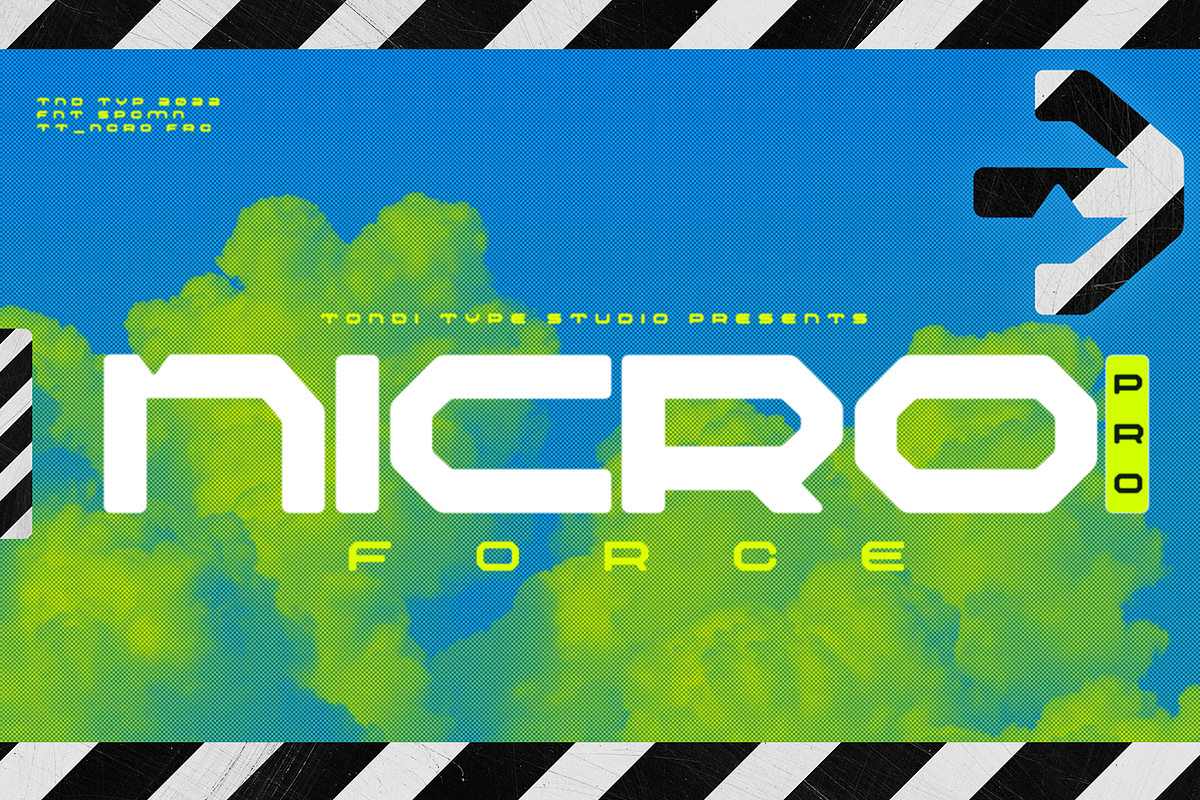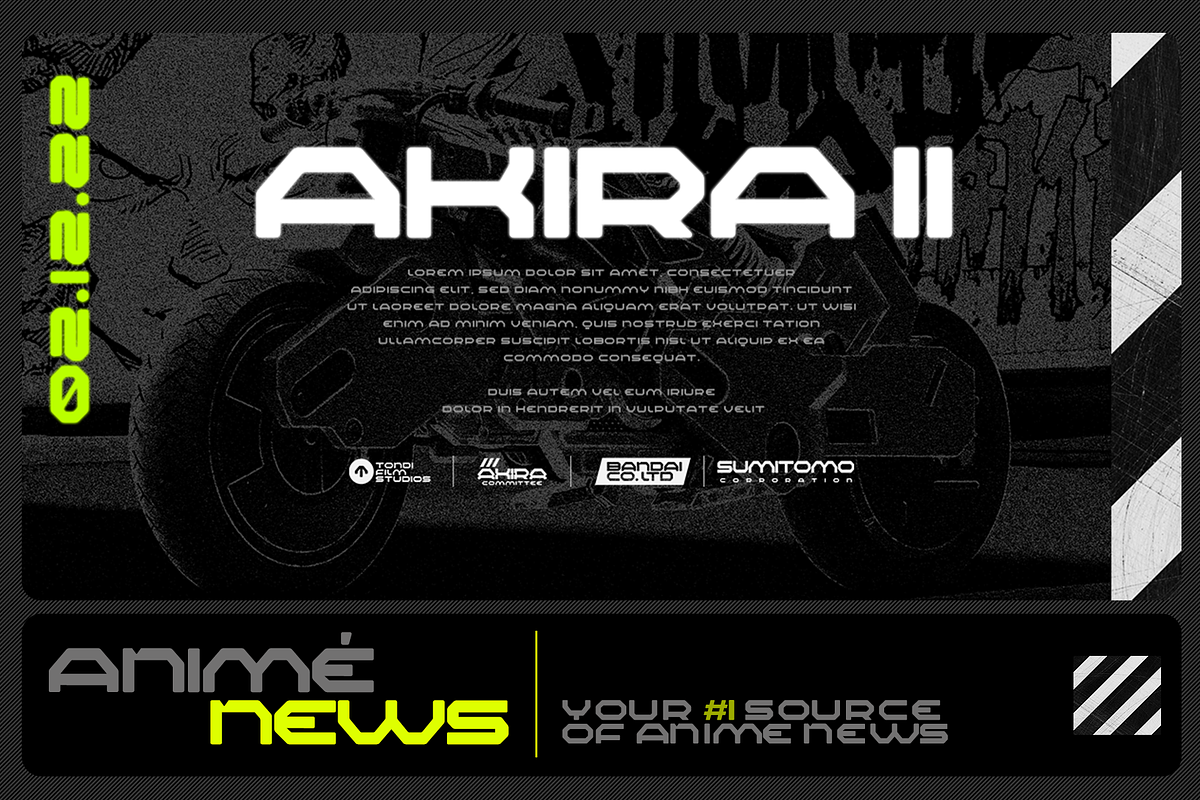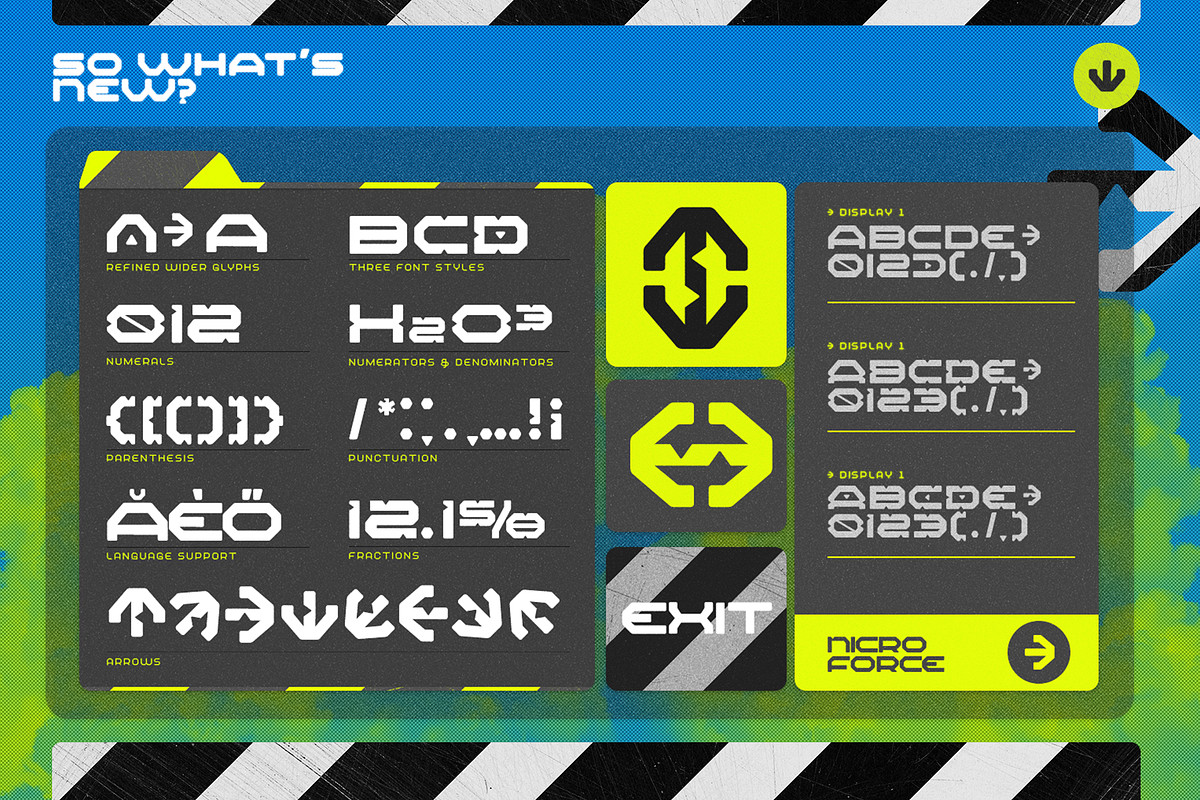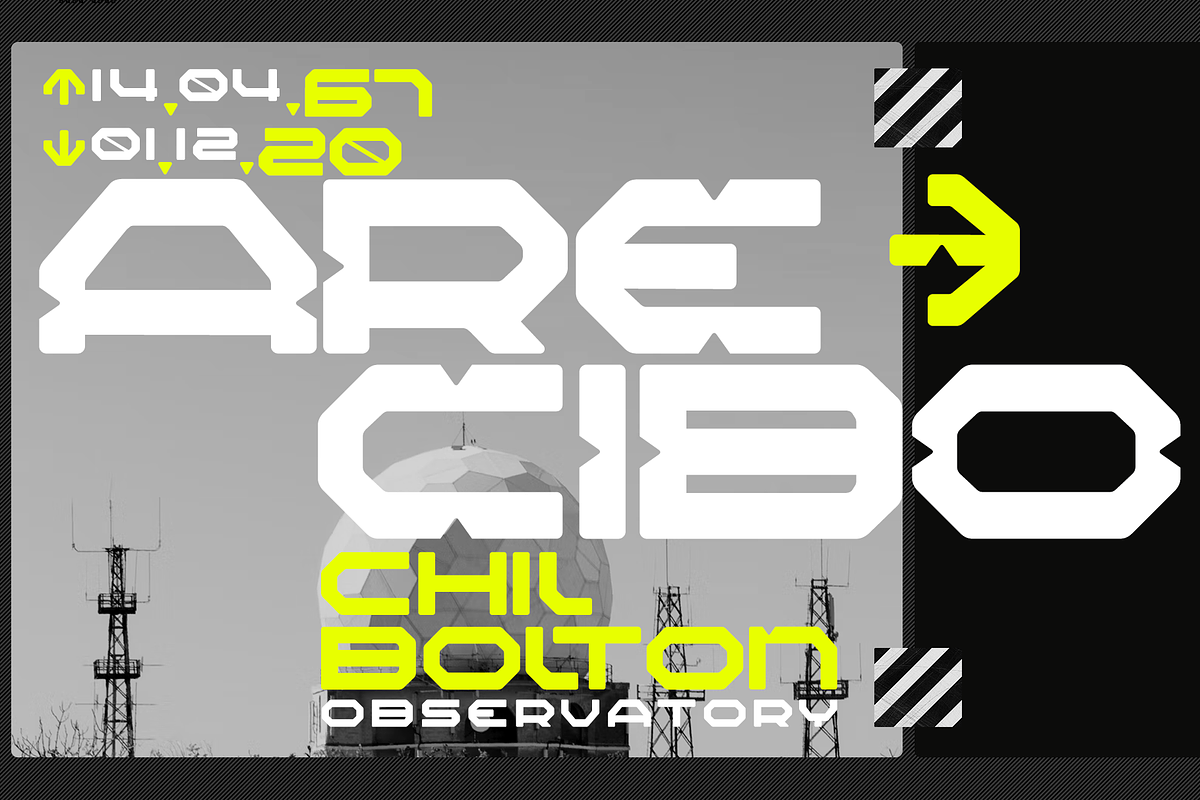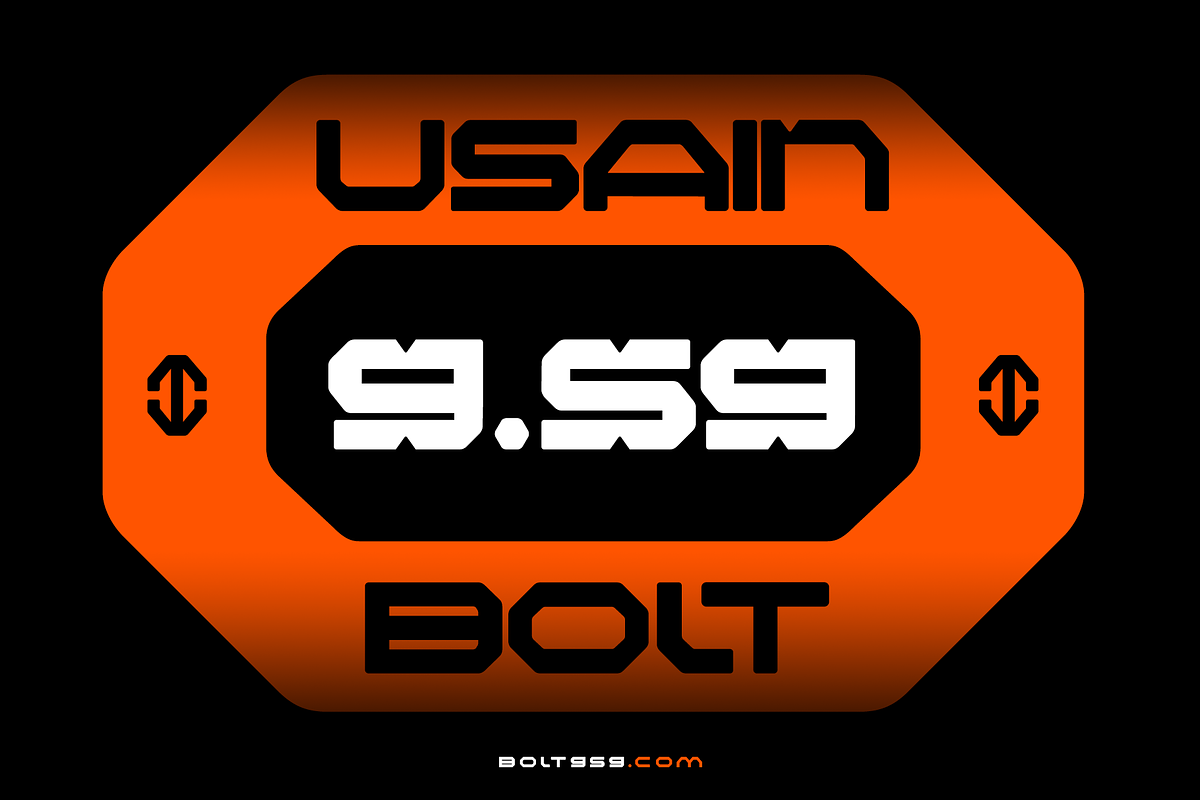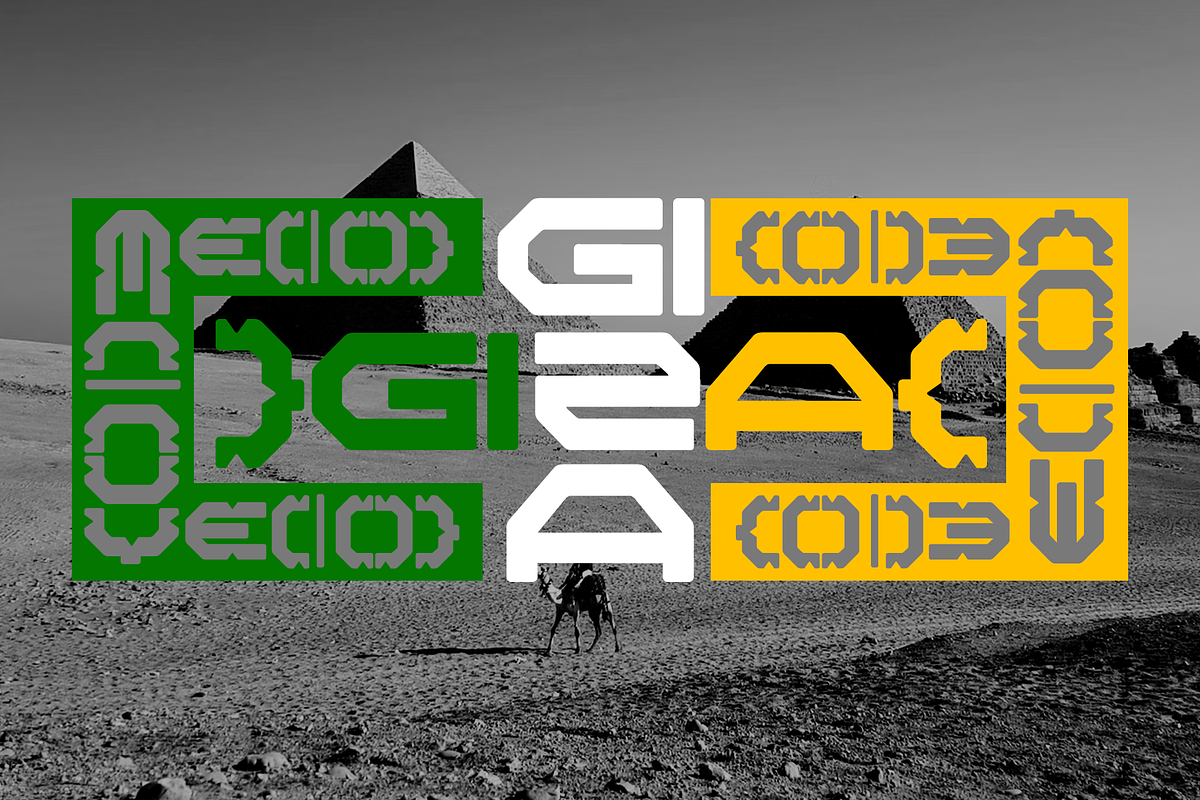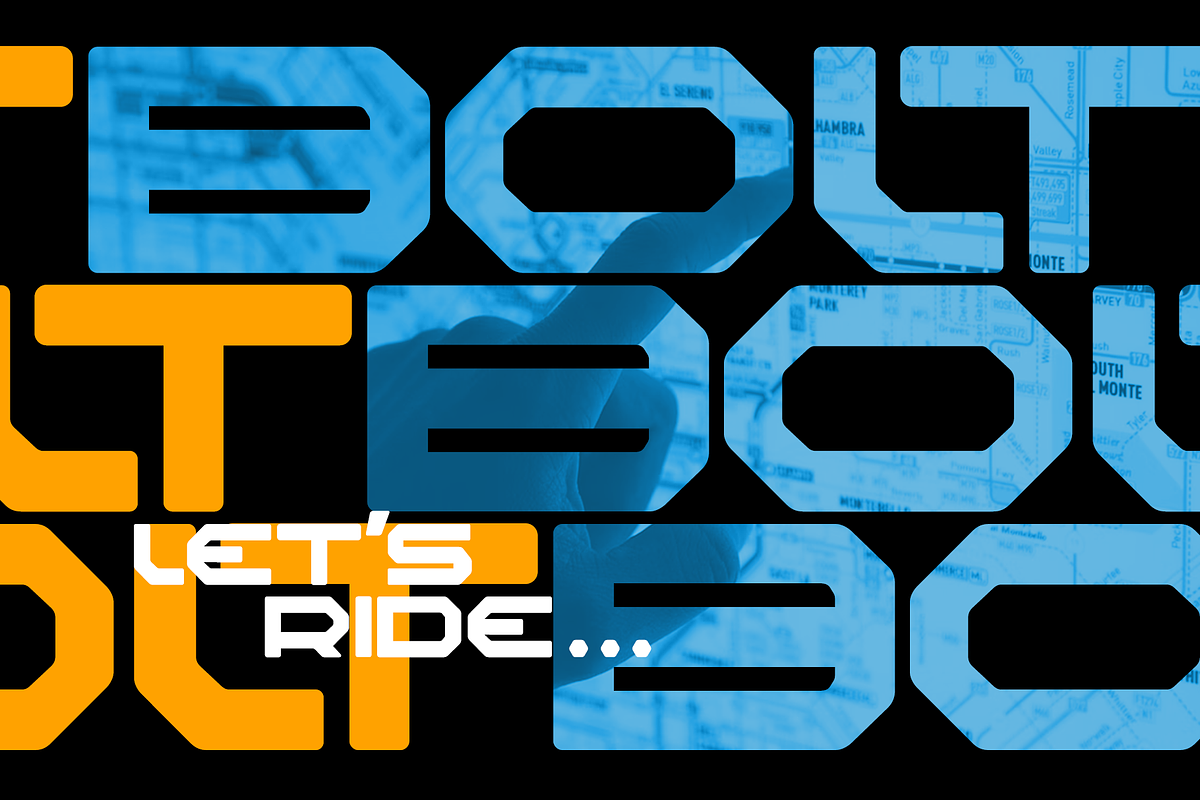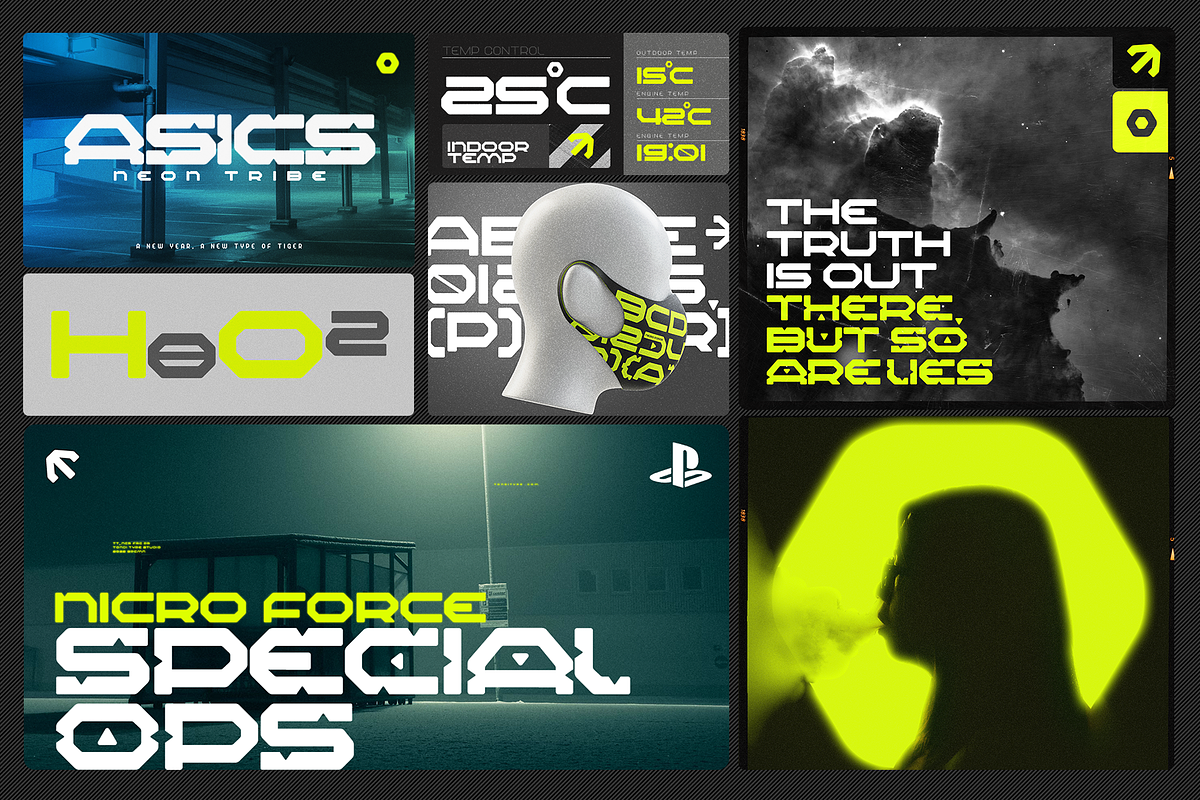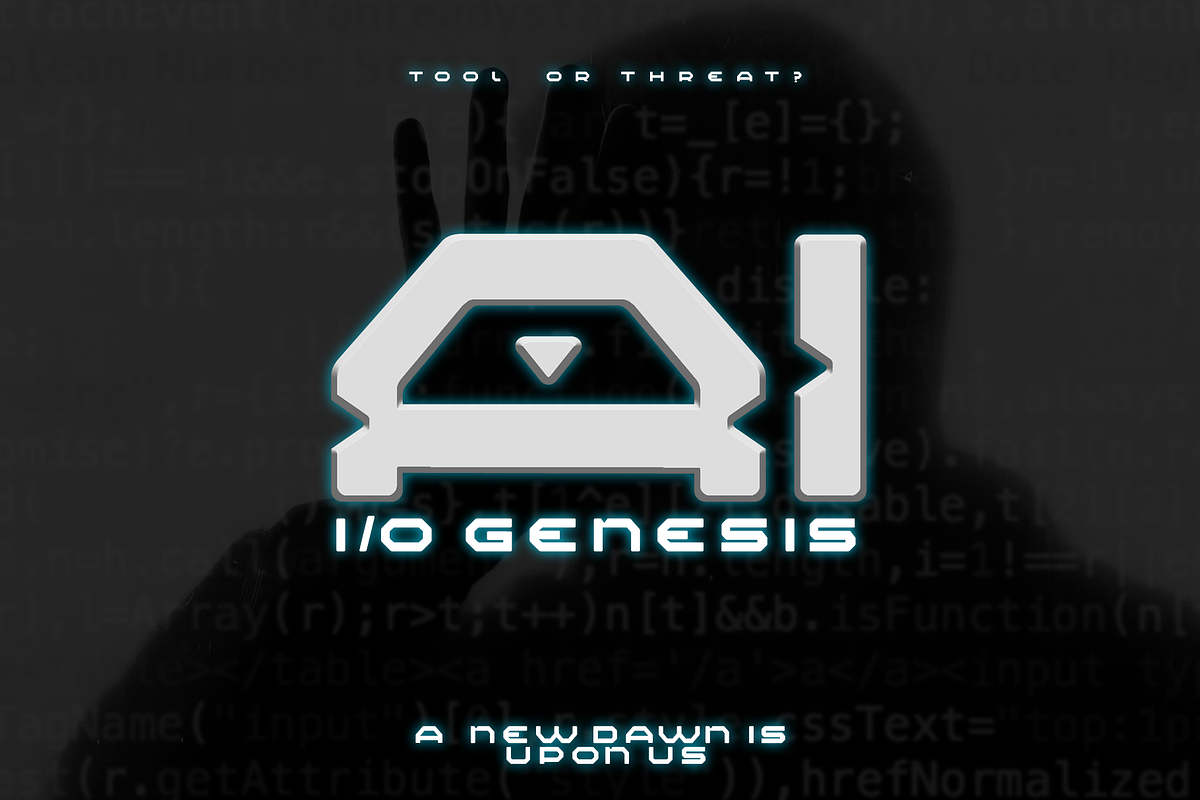
Nicro Force Pro
Nicro Force Pro is an all caps modular sans serif typefae created for visual communication with a futuristic appeal. The typface comes in 3 styles: Regular, Display I, Display II. Nicro Force, is perfect for use as a display (headline) font, OOH Colateral, Apparel Design and Game UI etc.
TT_Nicroforce Pro:
- Display I
- Display II
TT_RQND Pro (Bonus):
- Normal Medium